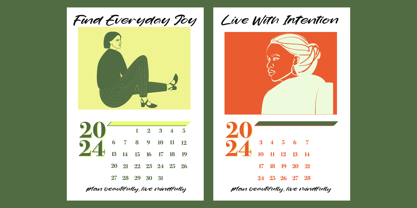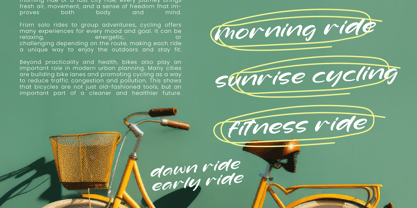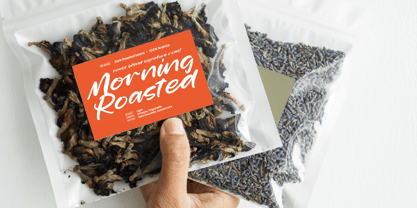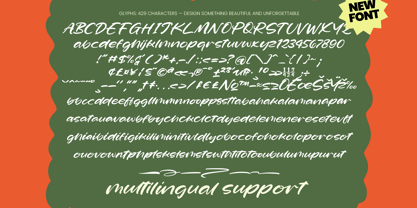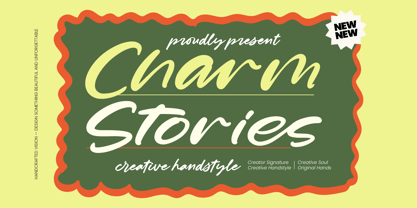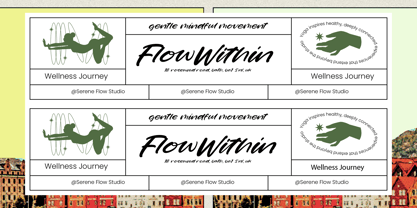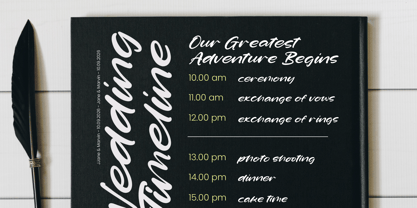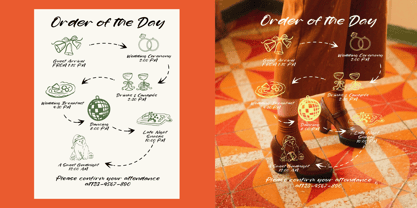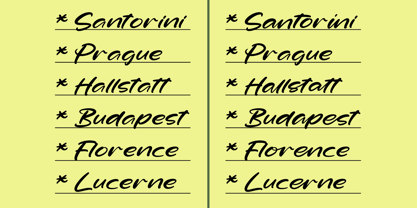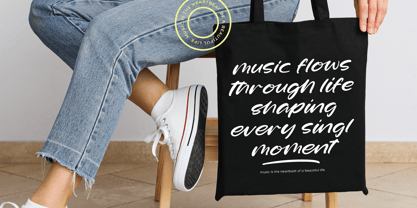
Charm Stories
The Charm Stories Font Family was designed by Heru Utama Putra and published by Letterena Studios. Charm Stories contains 2 styles and family package options. More about this family
Charm Stories - Modern Handwritten
Elevate your creative vision with a typeface that exudes personality and effortless elegance. Charm Stories - Modern Handwritten is a premium script font meticulously crafted to bring a contemporary aesthetic and a handcrafted feel to any digital or print project. Its fluid strokes and organic rhythm capture the essence of visual storytelling, making it an essential asset for designers seeking to add a personal, high-end touch to their creative portfolios.